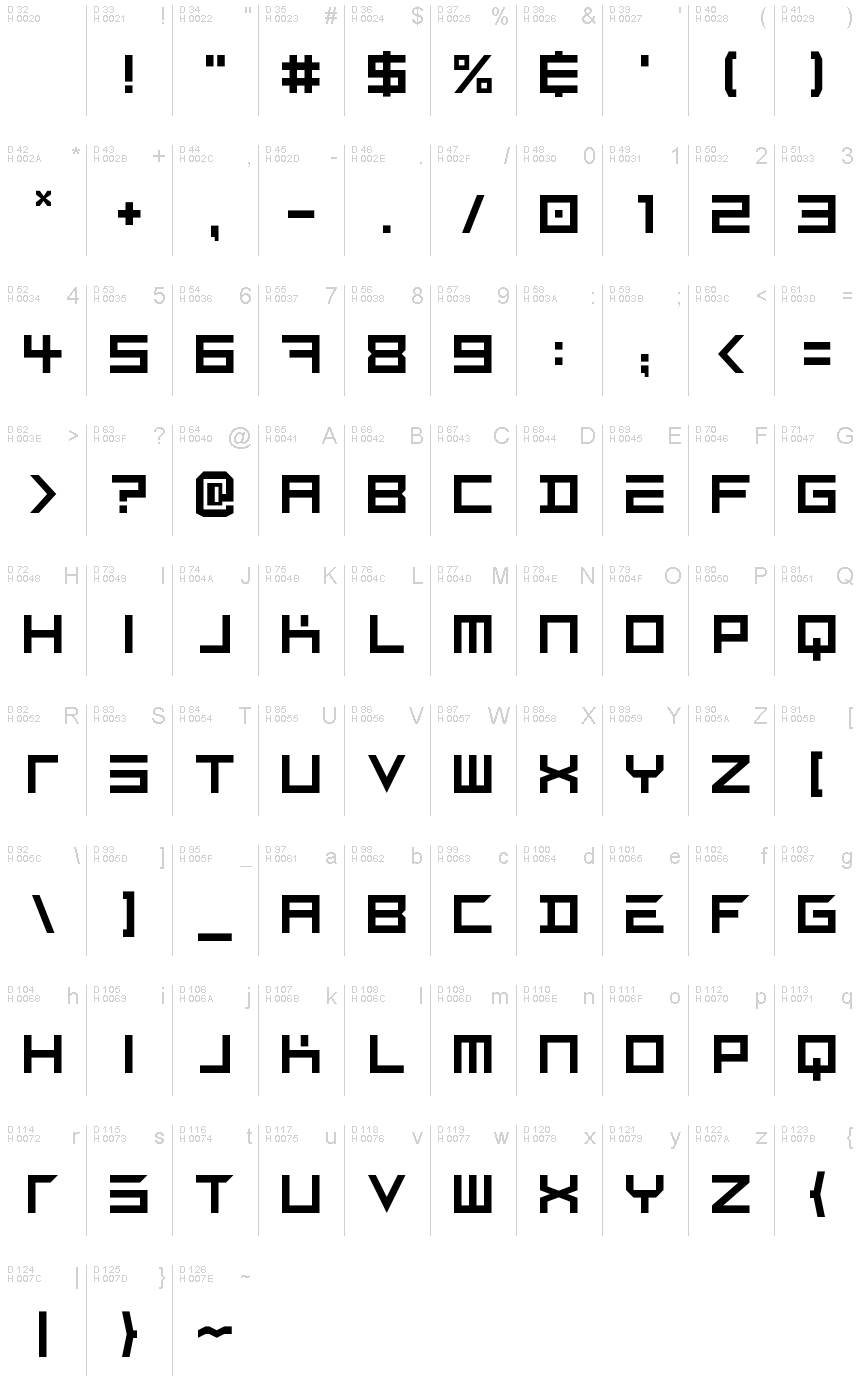
futuralumine_cre
Futuralumine_cre, designed by Fred Cre, is a display font that encapsulates the essence of futurism with its expanded and bold presence. The style exudes a cutting-edge vibe, making it perfect for projects that aim to stand out and capture the imagination. With its expansive letterforms, this font stretches across the page like a vision of tomorrow.
Ideal for eye-catching headlines or dynamic logos, Futuralumine_cre thrives in spaces where design seeks to break free from the conventional. Whether used in tech startups' branding or sci-fi movie posters, this typeface promises to inject a sense of modernity and innovation into any creative work.